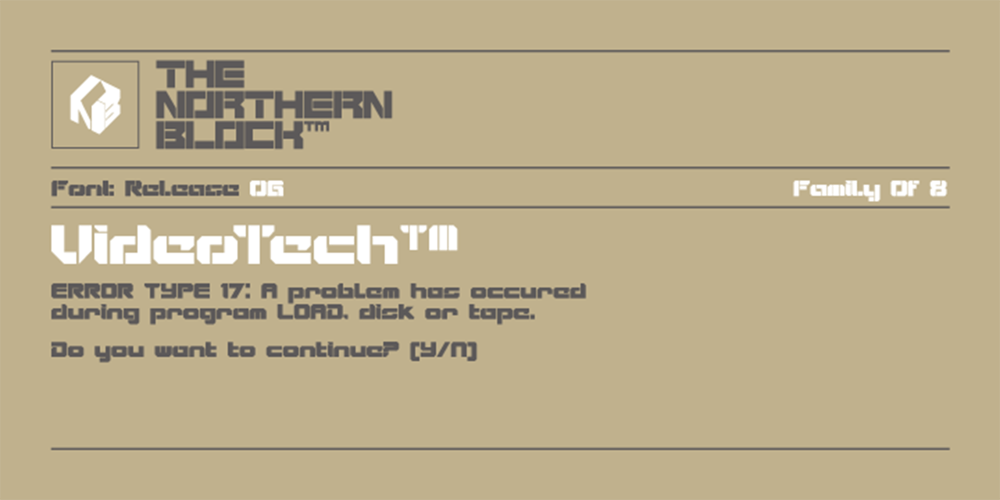
VideoTech
VideoTech font
VideoTech Font Family was designed by Jonathan Hill and published by The Northern Block. VideoTech contains 8 styles and family package options. VideoTech is an 8 font family consisting of 4 weights open and 4 weights closed. A heavyweight typeface that draws inspiration from loading computer games onto the Commodore 64.